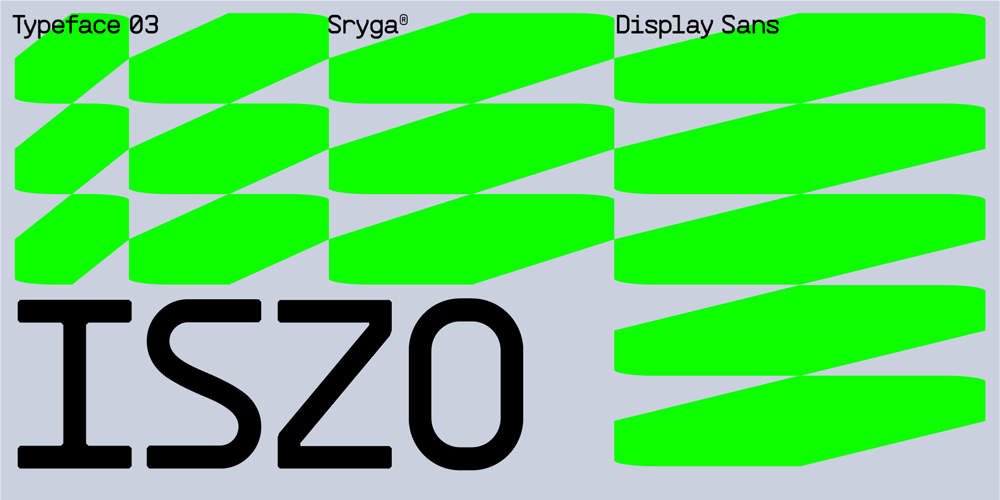
ISZO Font Family was designed by Pande Sujana and published by Sryga. ISZO contains 2 styles and family package options. ISZO is a modern precision, seamlessly blending tech innovation with humanist elegance. Sleek lines and meticulous geometry reflect architectural brilliance. Subtle curves evoke approachable essence. Resonating with standardization and excellence, ISZO captures the contemporary design and typography’s future—a harmonious balance of allure and human connection, ideal for conveying technical prowess and artistic sensibility.